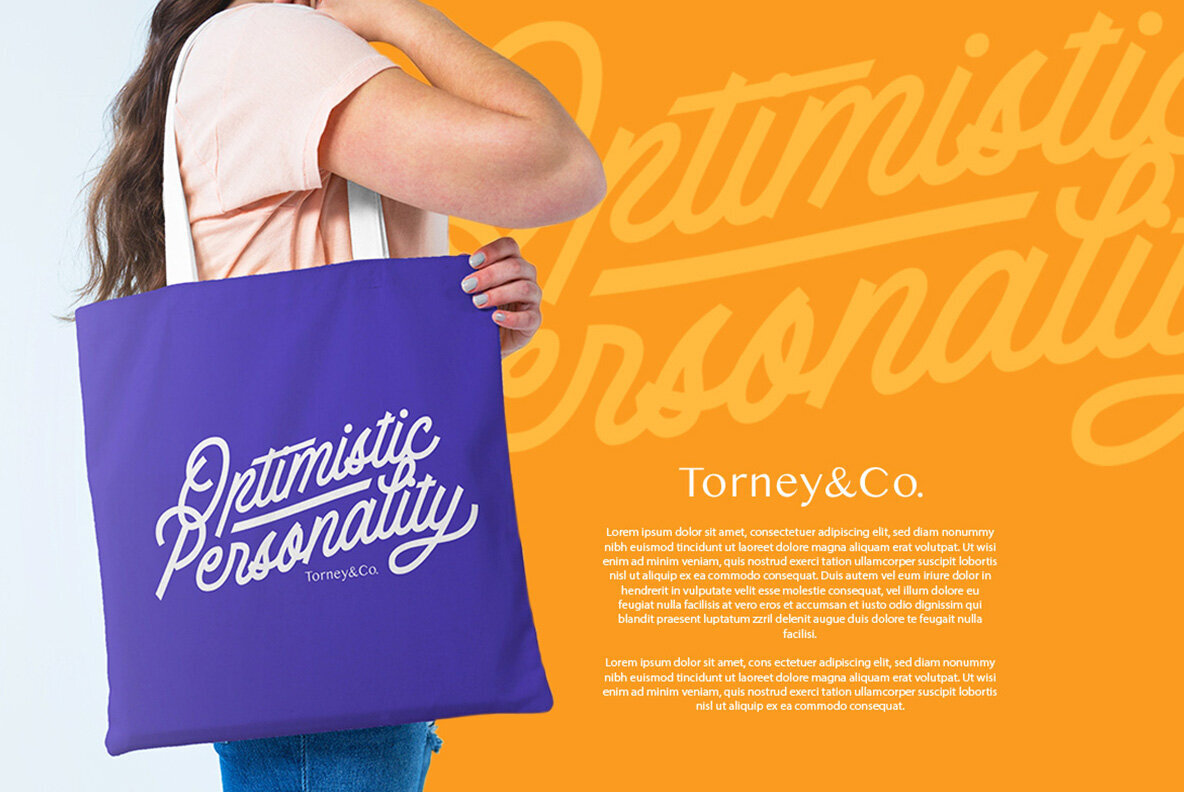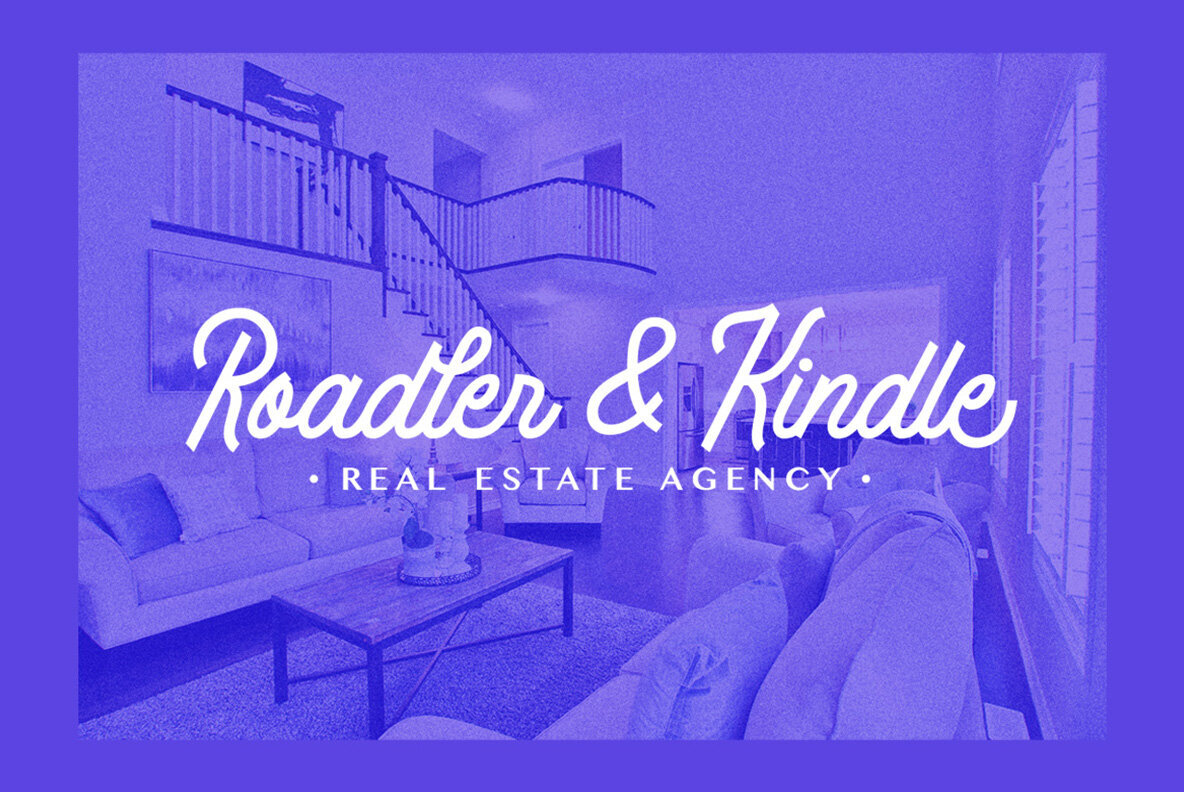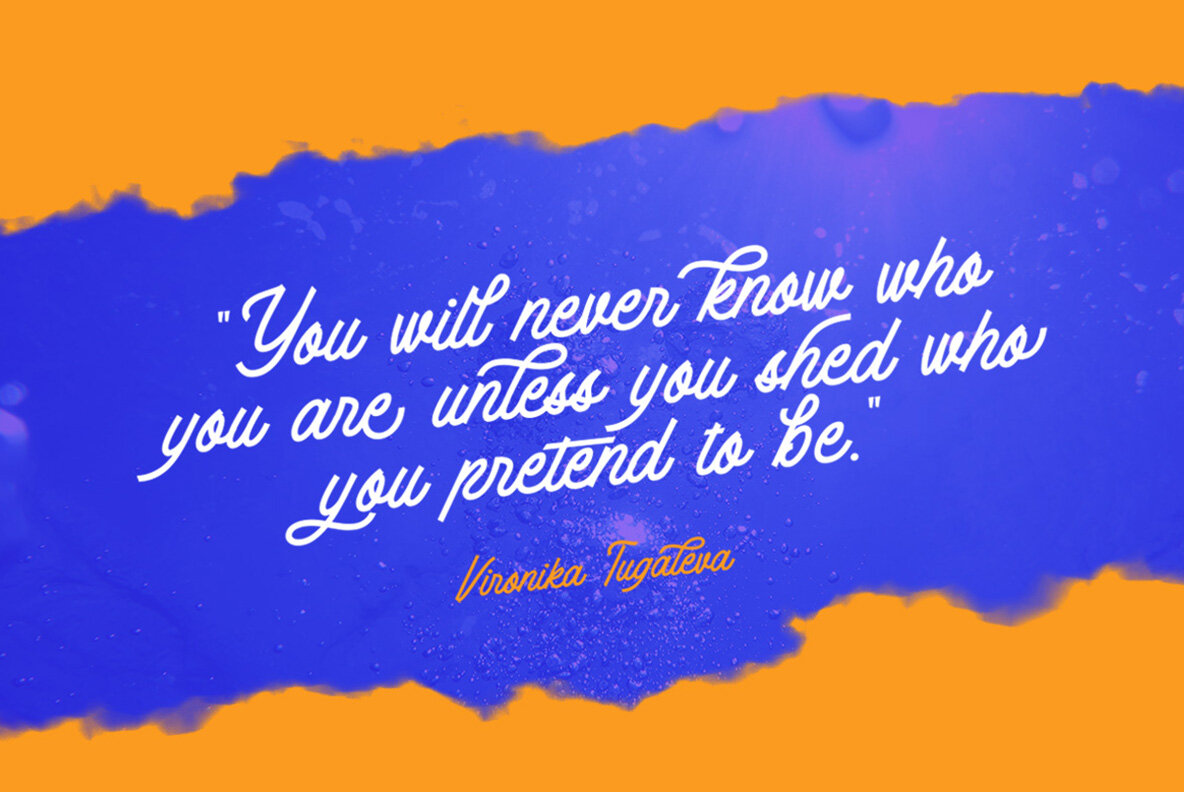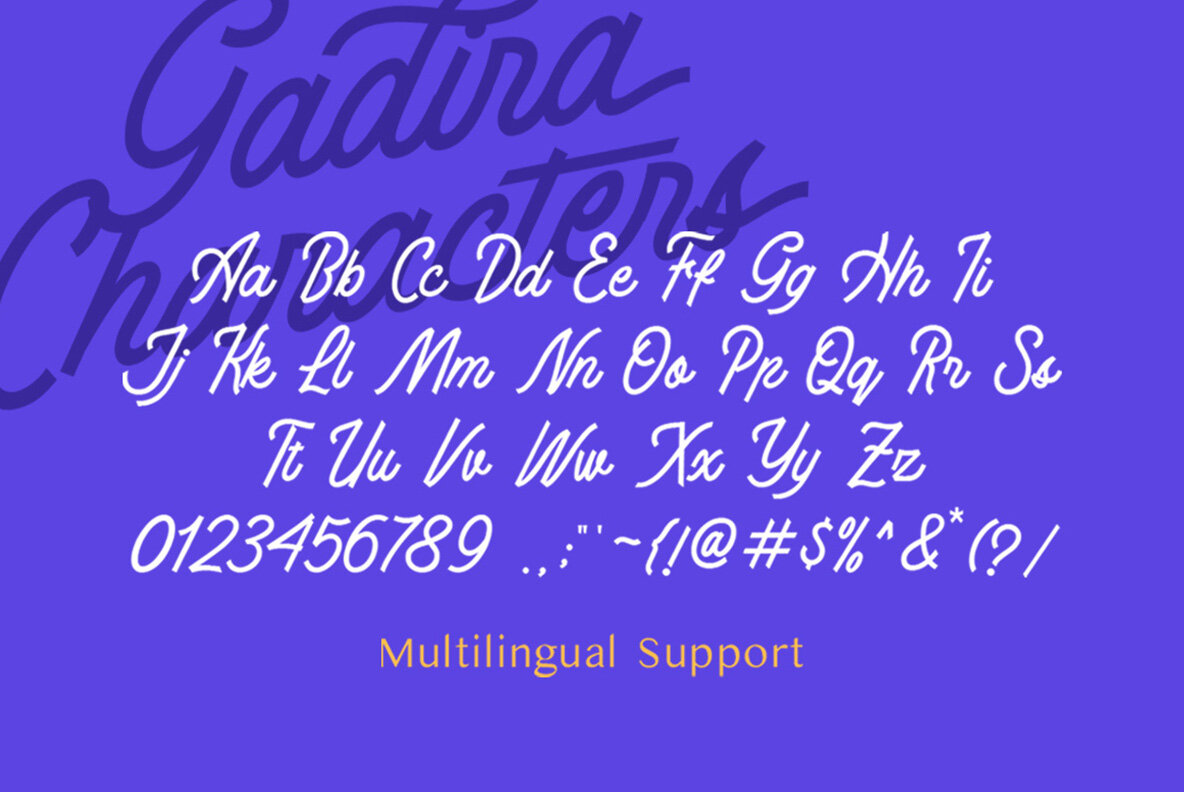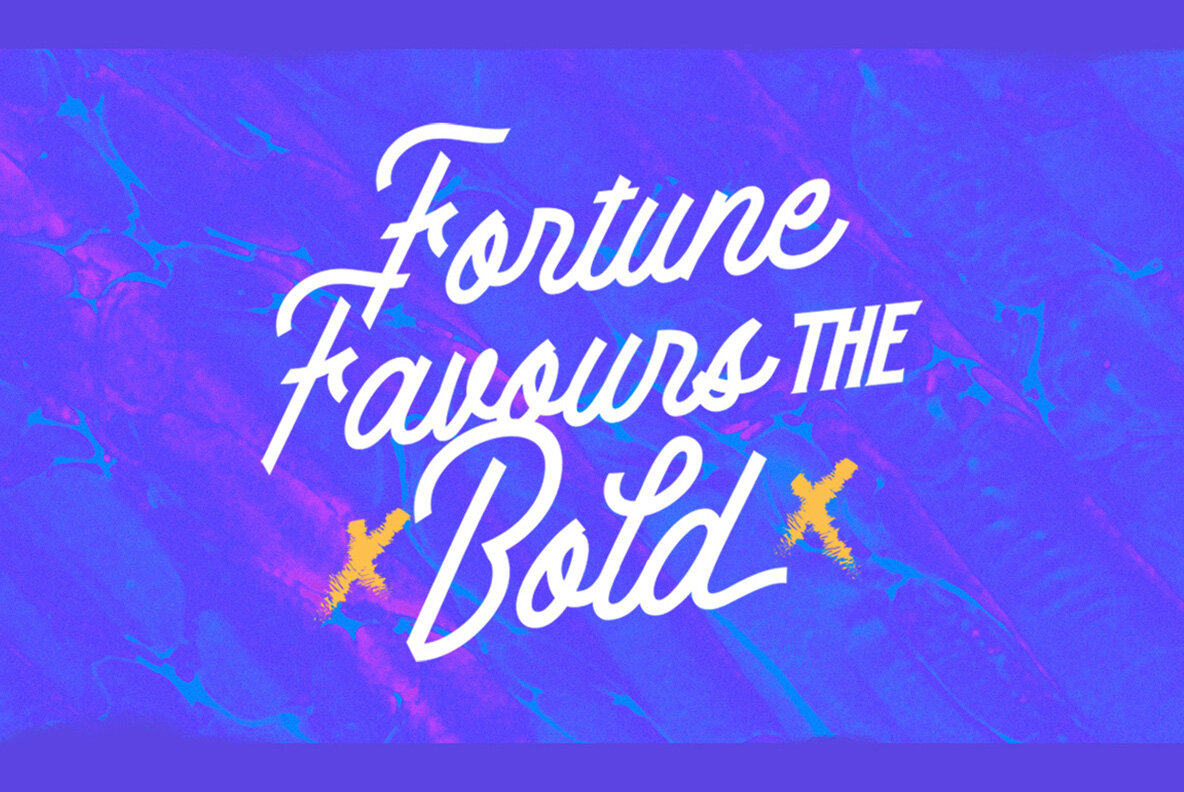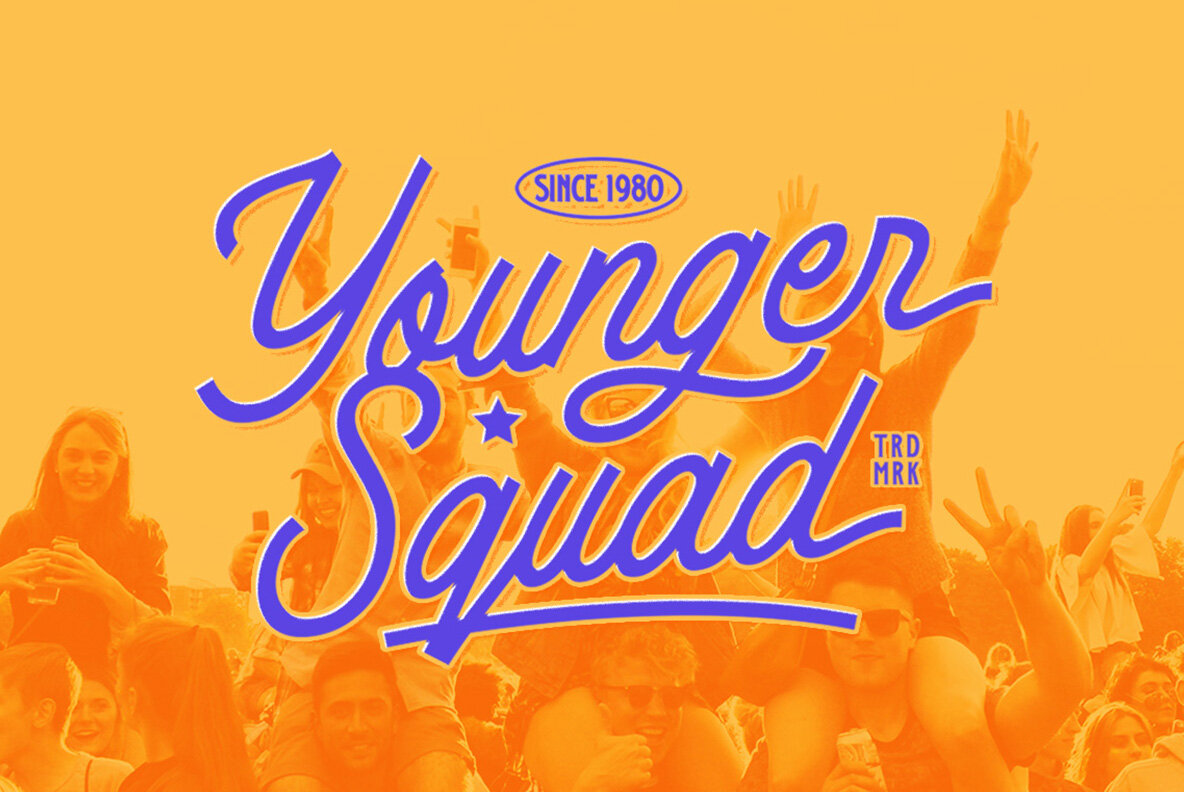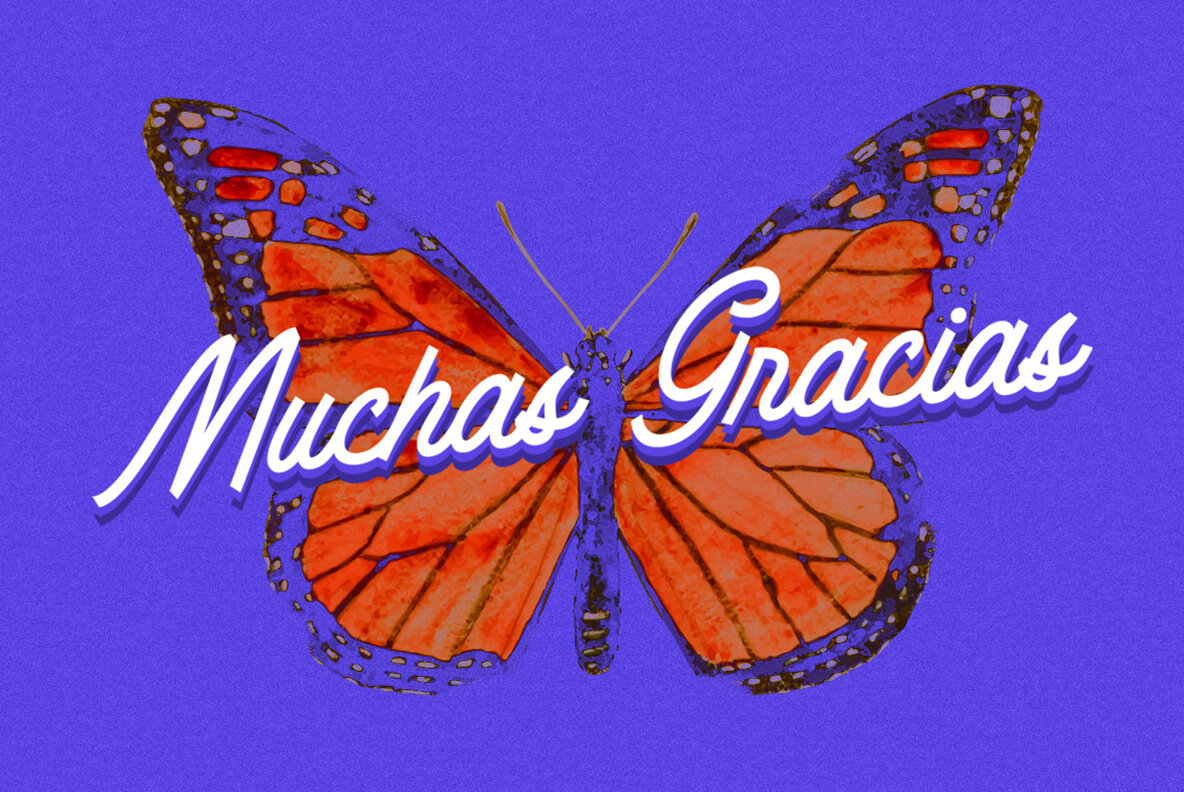
Gadira Font
Gadira Regular
Gadira embodies a playful and relaxed script style, enriching your designs with a touch of whimsy. While it harmonizes effortlessly within logos, its versatility shines in other formal contexts such as invitations, and labels. Extend its charm to magazines, books, greeting cards, or any advertising endeavor. For optimal use, programs supporting OpenType features and Glyphs panels such as Adobe Creative Suite and Corel Draw are ideal. Visit ... for a guide on accessing these sophisticated features.Gadira: A Free-Spirited Script for Versatile Designs